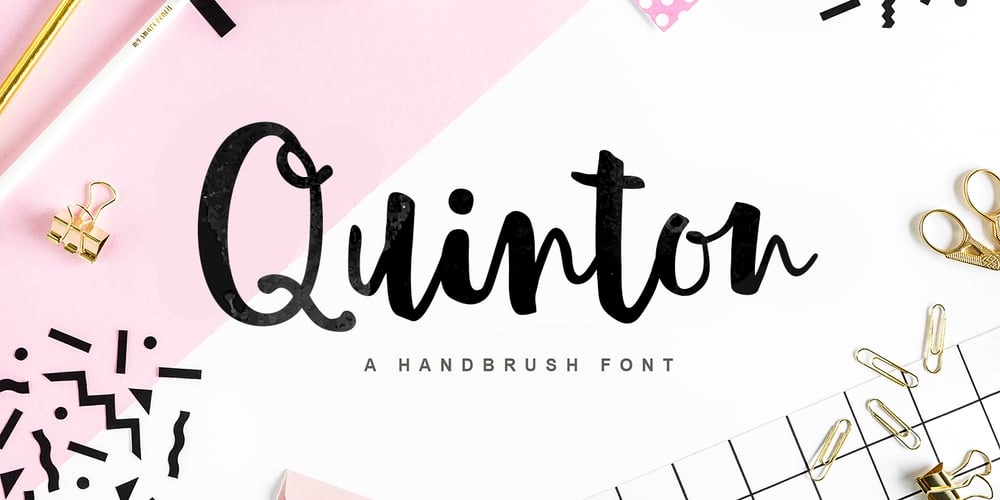
Quinton Script Font Family was designed by Fajar Gunawan and published by Fargun Studio. Quinton Script contains 2 styles and family package options. Quinton is a beautiful collection of hand-lettered modern calligraphy fonts. It’s made by decorative characters and a dancing baseline, and is so beautiful on invitations, greeting cards, branding materials, business cards, quotes, posters, and more.